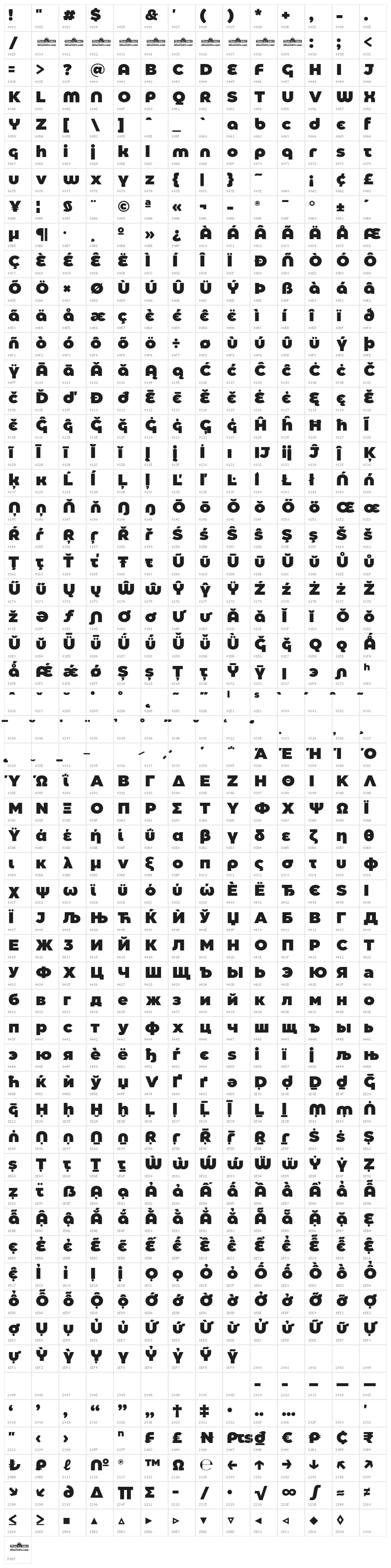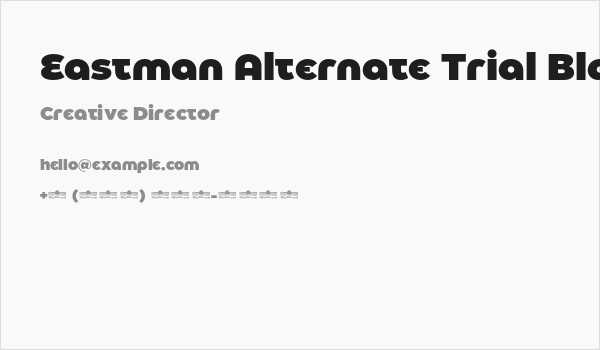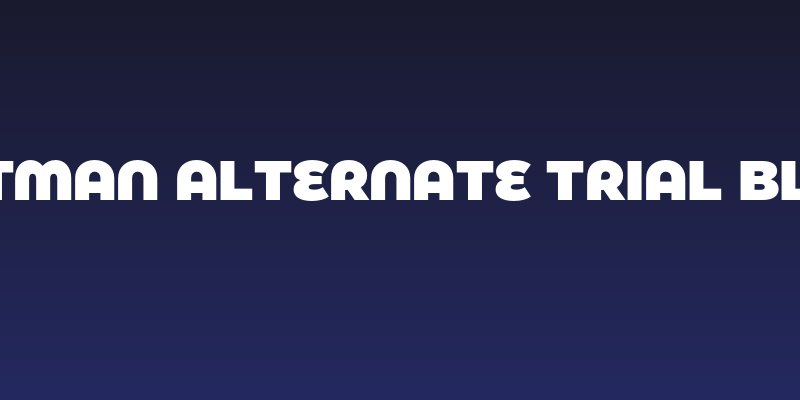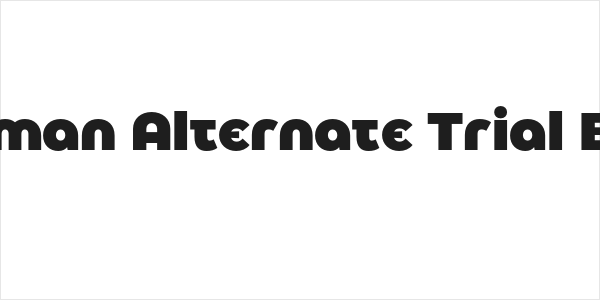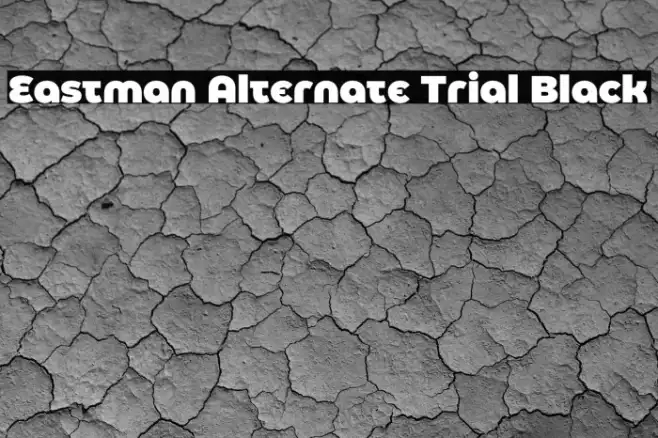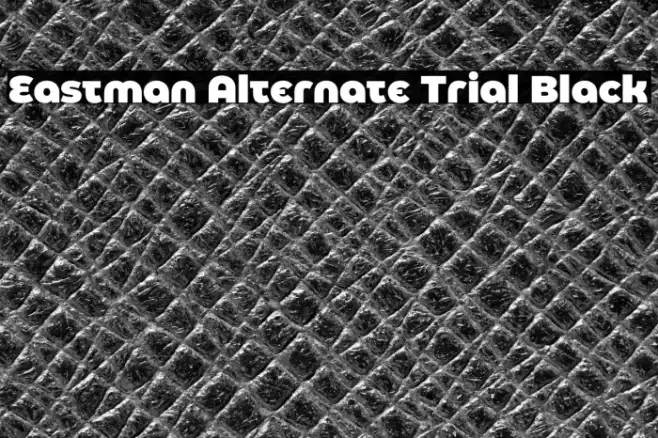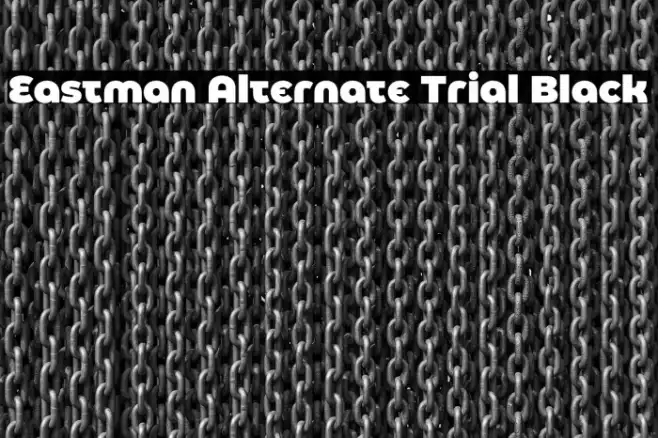
Eastman Alternate Trial Black Font
Eastman Alternate Trial Black Description
This font features a bold and modern design with a strong geometric influence. The characters are wide and substantial, providing a commanding presence. The uppercase letters are particularly striking, with rounded edges and a consistent stroke width that conveys stability and confidence. The lowercase letters maintain the same boldness, ensuring readability while preserving the font's distinctive style. The numerals and special characters are equally robust, making them suitable for various applications. Overall, this font is ideal for projects that require a bold and impactful visual statement.
| Proposed Projects | Ideal for branding, headlines, posters, and any design requiring a strong visual impact. |